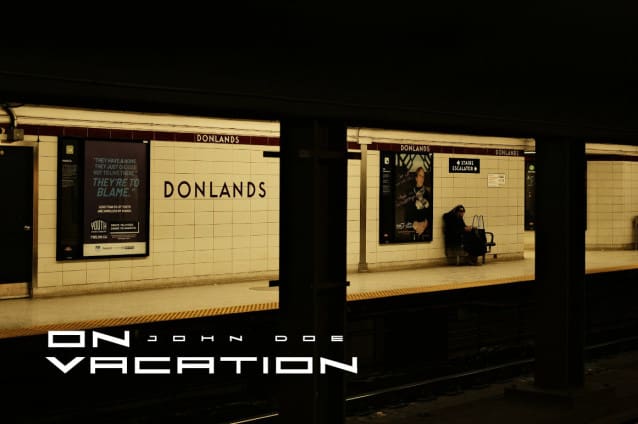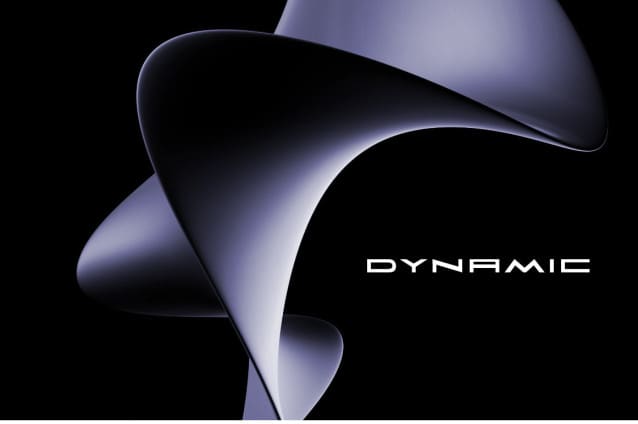
Faqro Extended Expand Font
Faqro Extended Expand Font, perfectly fit for branding, logo, wedding things, greeting cards, fashion, lookbook, marketing promotion, anytime you want to look fancy elegant but still casual.